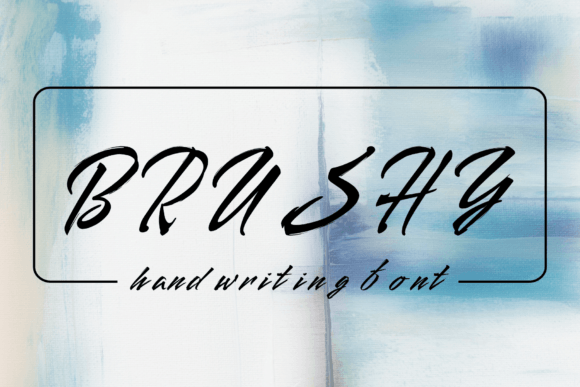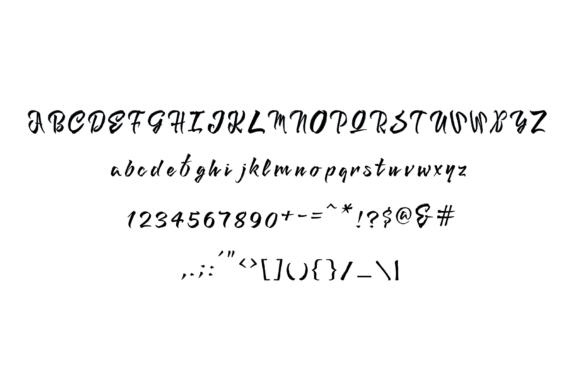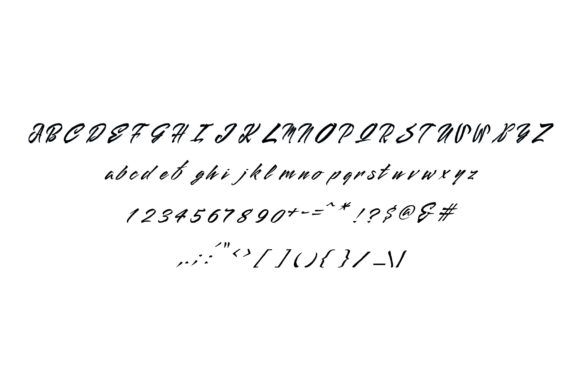
About Brushy Font
“Brushy” is a handwritten brush script font crafted to emulate the appearance of text written on a marker board. This font is perfect for a range of creative projects, especially suited for greeting cards, invitations, and motivational quotes. Its distinctive style adds a touch of authenticity, allowing you to express your messages with a unique and personal flair.
The brush script nature of “Brushy” gives it a casual and free-flowing appearance, making it an ideal choice for projects that aim to convey a sense of warmth and approachability. Whether you’re designing greeting cards to share special moments, crafting invitations for memorable events, or creating motivational quotes to inspire others, this font enhances the overall visual impact of your text.
The marker board effect in “Brushy” adds a touch of realism, creating the illusion of hand-drawn strokes on a surface. This feature contributes to the font’s charm and makes it a standout choice for designs that seek a natural and handmade look.
In summary, “Brushy” is more than just a font; it’s a design tool carefully crafted to bring a handwritten, marker board feel to your creative projects. Let this font be the medium through which you express your best messages, adding a personalized and genuine touch to your designs.